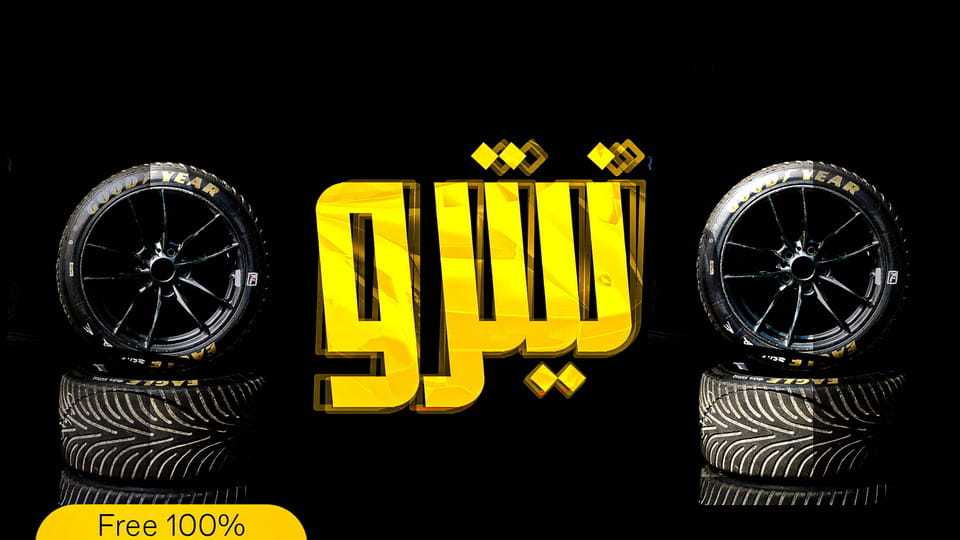
Download Nitro font, the secret weapon of designers who aren’t afraid of speed. Its shape doesn’t ask for attention… it takes it!
Designer: MTtype Foundry